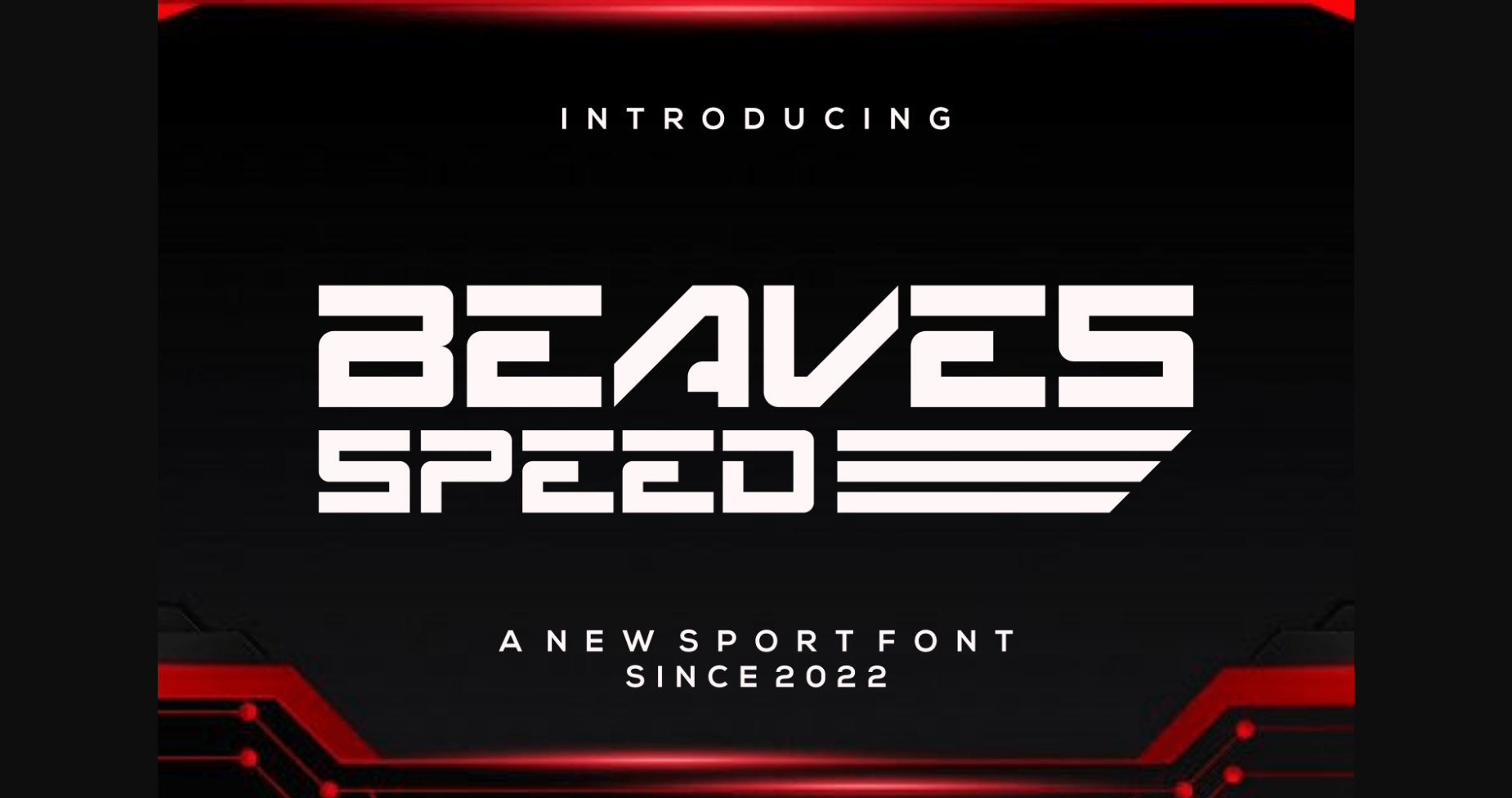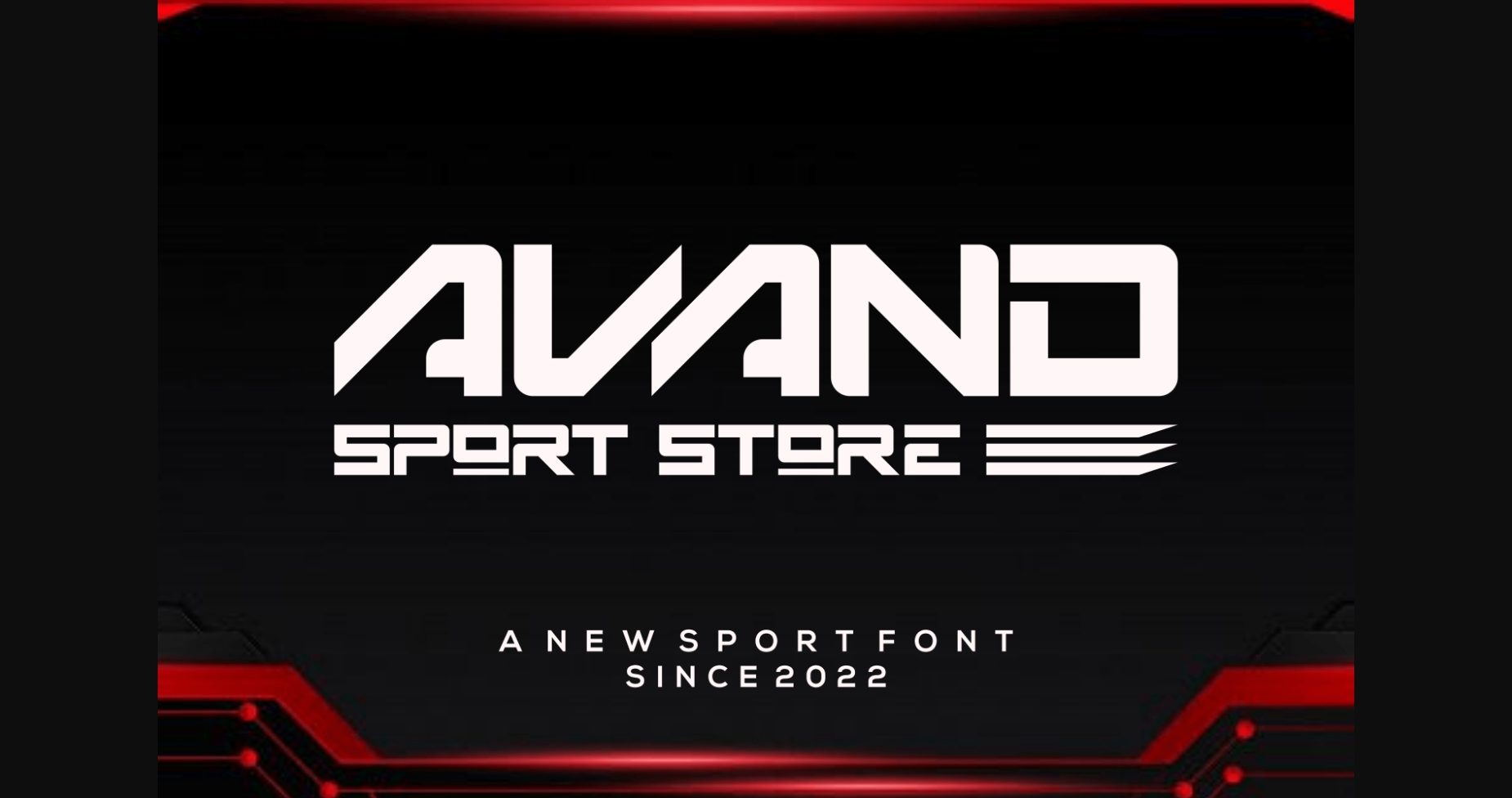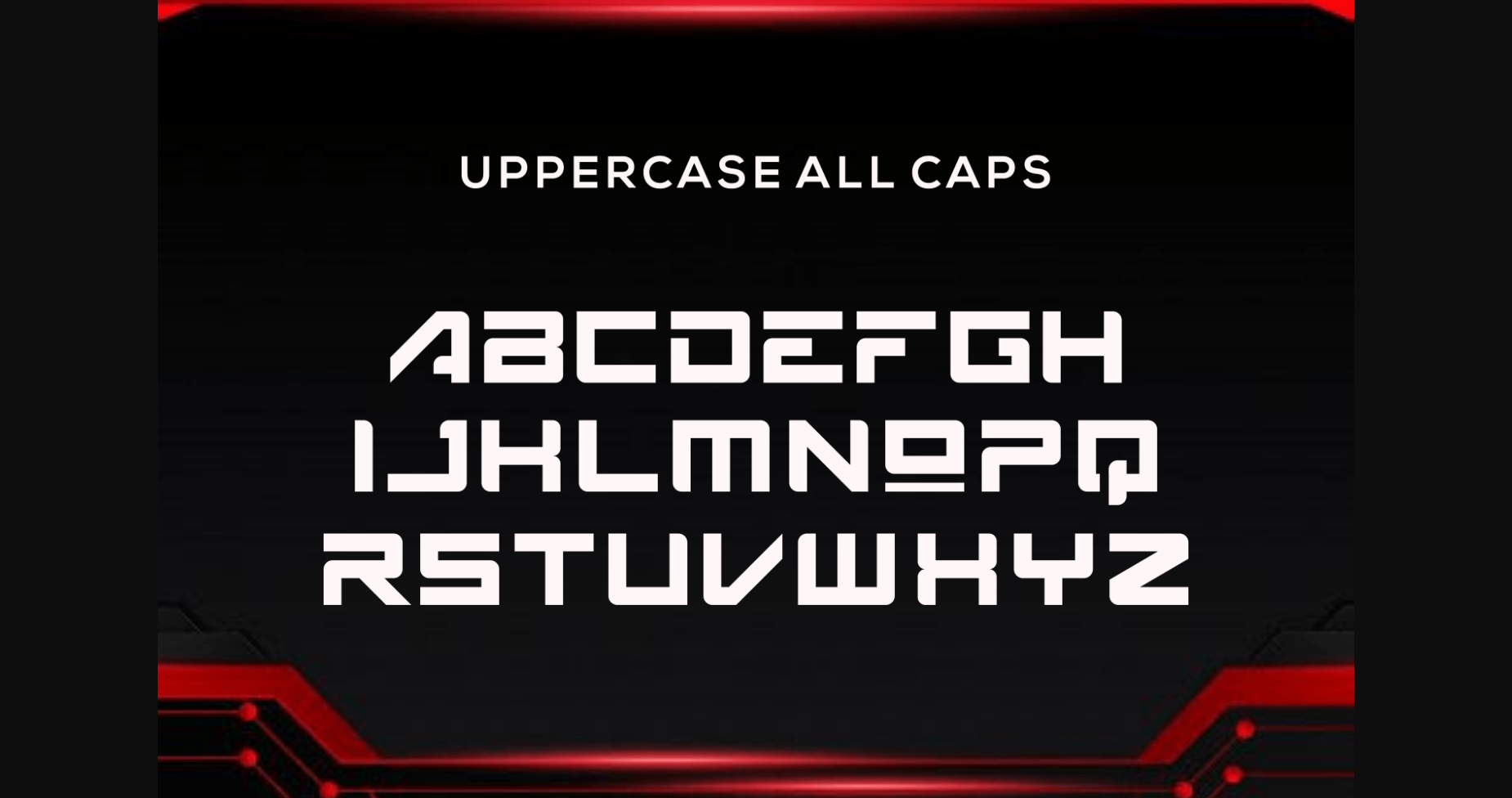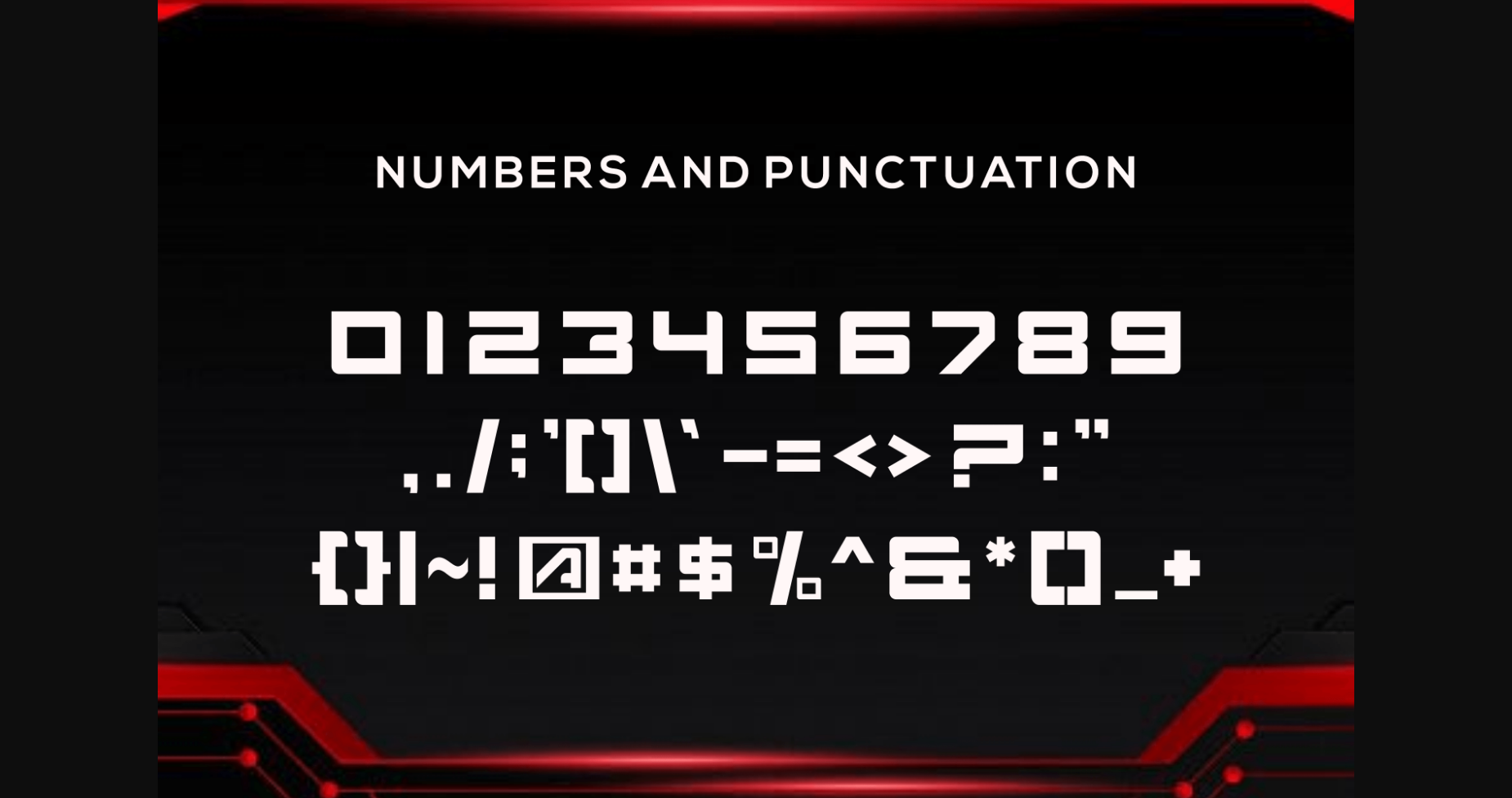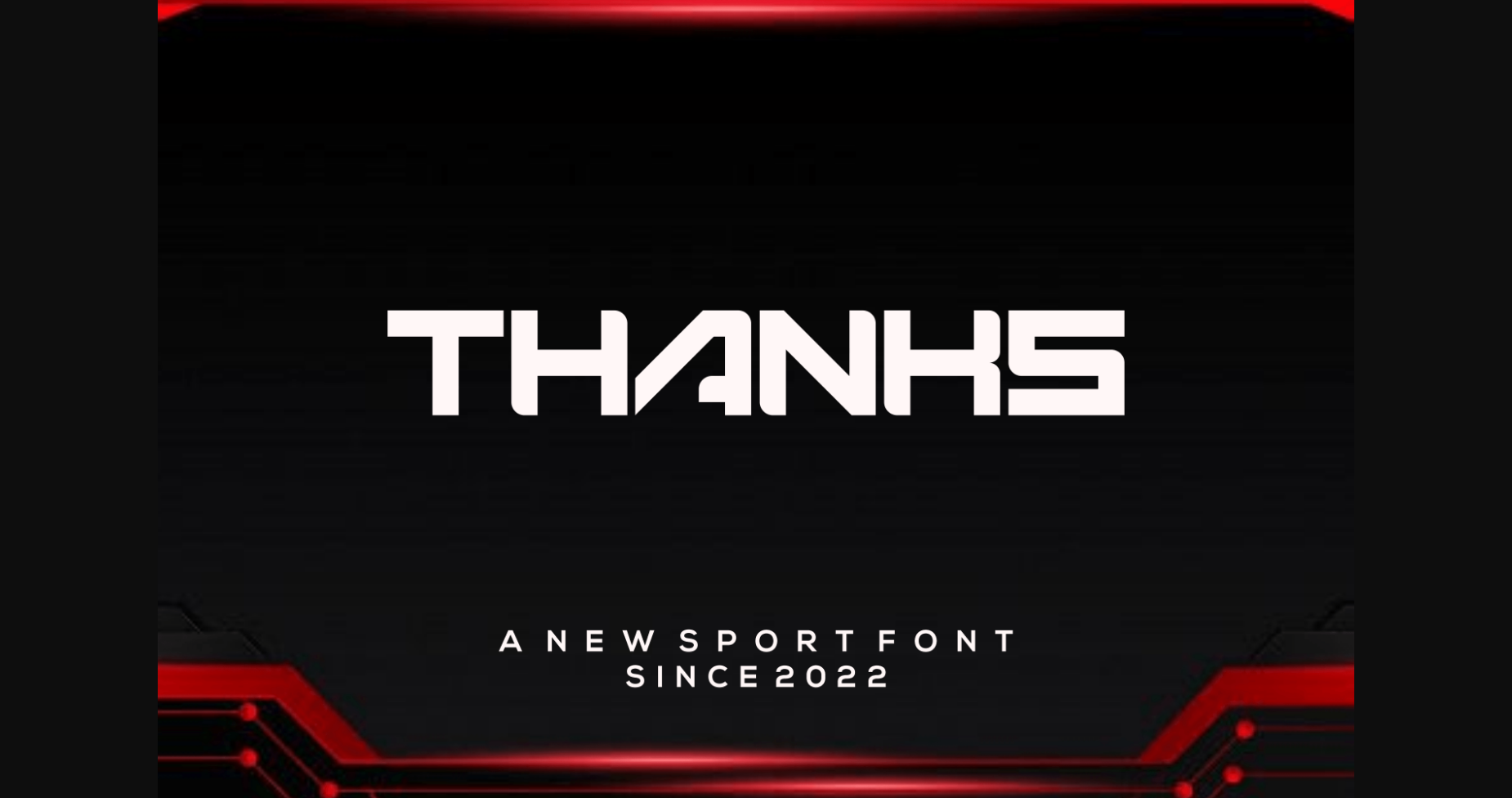
Beavesspeed Font
About Beavesspeed Font
Beavesspeed is a sans serif font with a charming touch of style. This typeface looks interesting and unique, perfect for anyone who wants to create a design that displays an interesting side but is still relevant for a charming modern look.